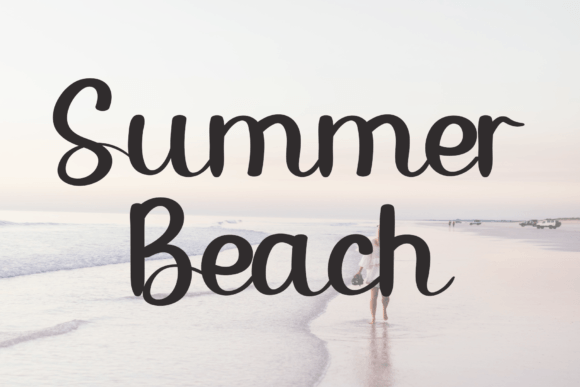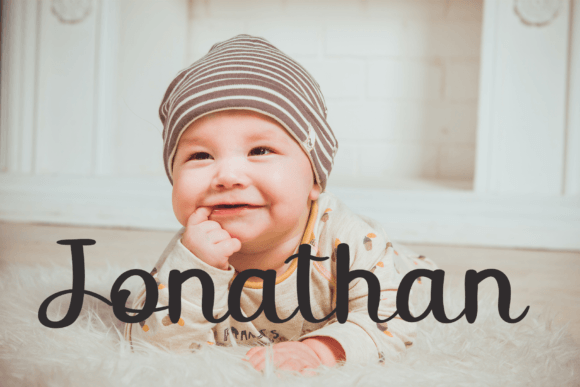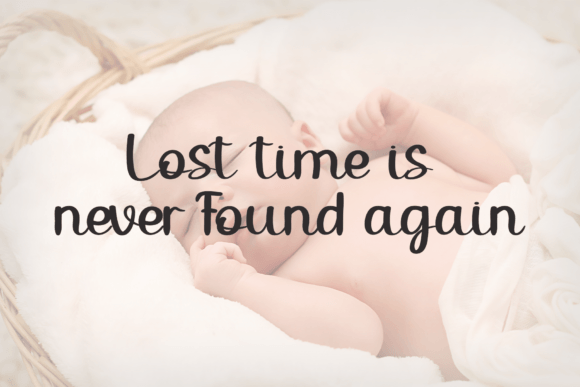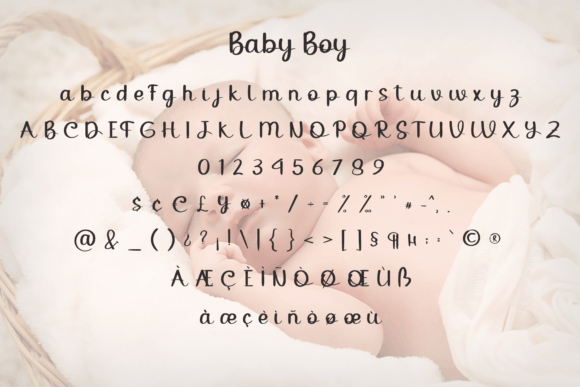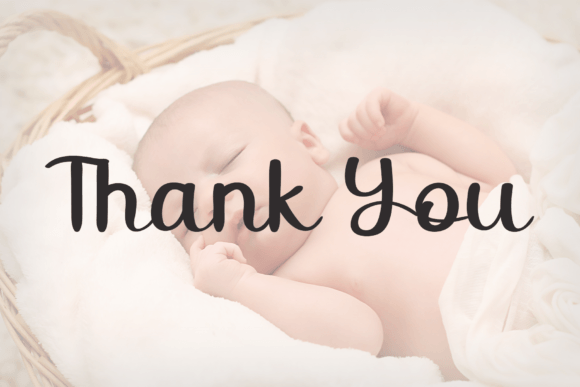
Welcoming the Joy of Childhood: Introducing Baby Boy Font
Do you remember the moment when you first held your newborn baby boy in your arms? The overwhelming love and happiness that flooded your heart is a feeling that’s hard to put into words. For me, it was the spark that ignited a desire to create something special – something that would capture the essence of childhood and the magic of little boys.
Enter Baby Boy Font, a beautiful handwritten script font designed to celebrate the innocence and joy of little ones. This charming font is perfect for baby shower invitations, nursery decor, and any design project that needs a touch of whimsy. As a designer, you’ll appreciate the versatility and elegance of Baby Boy Font, which adds a delightful touch to any project. With its playful yet refined strokes, this font is sure to become a favorite among designers and parents alike.
Baby Boy Font Key Features
- Font Family: Baby Boy Font is a unique, handwritten font designed specifically for children’s products and related branding.
- Size: The font family includes multiple weights and styles, ranging from 300 (Light) to 900 (Black), providing flexibility for various design needs.
- Resolution: Designed for high-resolution displays, Baby Boy Font is ideal for digital applications, including website headers, social media graphics, and more.
- Unique Characteristics: The font’s playful, handwritten style and rounded edges make it perfect for creating a friendly, approachable atmosphere, often used in children’s products, nursery decor, and educational materials.
Designer Review: Baby Boy Font
When I first laid eyes on the Baby Boy Font, I was immediately drawn to its playful and whimsical charm ✨. The font’s unique blend of rounded edges and subtle texture adds a touch of sophistication, making it perfect for designs that need a bit of whimsy.
- Cute and playful aesthetic ✨
- Unique blend of rounded edges and subtle texture
- Perfect for designs that need a bit of whimsy, such as children’s products or baby-related items
- May be too cutesy for some designs ⚠️
- Lack of versatility in terms of style and application
- Not ideal for formal or professional designs
Overall, the Baby Boy Font is a great choice for designers who want to add a touch of whimsy to their projects. While it may not be the most versatile font, its unique charm and playful aesthetic make it a great addition to any design library. With a bit of creative restraint, this font can add a lot of character to your designs.
For a cohesive look, pair the font with pastel colors and soft textures.
For a professional look, use the font in conjunction with subtle gradients and textures.
For a playful look, use the font in bold and italic styles to add emphasis.
The “Baby Boy Font” is perfect for:
- Creating nursery decor and invitations.
- Designing children’s clothing and accessories.
- Developing branding for baby-related businesses.